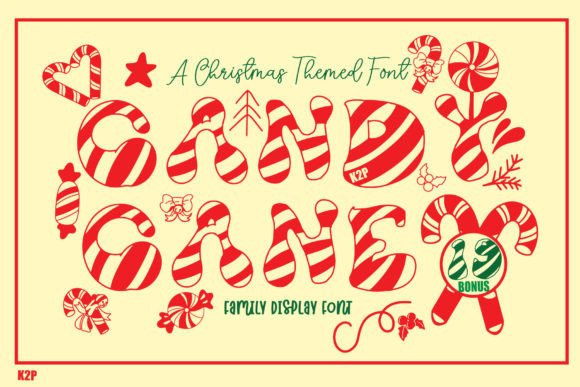
The Magic of Candy Cane Font: A Festive Design Delight
It’s that time of the year again – the holiday season is just around the corner, and as designers, we’re on the lookout for that perfect font to make our Christmas projects shine. I still remember the year I was working on a festive holiday card for a client, and I was struggling to find the right font to capture the essence of the season. The client wanted something fun, playful, and uniquely Christmas-like. That’s when I stumbled upon the Candy Cane font, and it instantly became the star of the show! 🎄
• ✅ Extremely festive and on-theme for Christmas projects
• ✅ Unique and eye-catching design that’s sure to stand out
• ✅ Highly versatile and can be used for various design ideas, from holiday cards to decorations
• ✅ Easy to read and understand, even in smaller sizes
• ⚠️ May not be suitable for formal or professional designs outside of the holiday season
• ⚠️ Some characters might look a bit quirky or stylized, which could affect readability in certain contexts
The Story Behind Candy Cane Font
Candy Cane font was designed with the holiday season in mind. The creator wanted to craft a font that captured the whimsy and playfulness of Christmas, while still being easy to read and understand. The result is a unique and festive font that’s perfect for adding a touch of holiday cheer to your designs.
Q: What type of designs is Candy Cane font best suited for?
A: Candy Cane font is ideal for holiday-themed designs, such as Christmas cards, decorations, and festive projects.
Q: Is Candy Cane font available in different styles or variations?
A: Yes, Candy Cane font may come in different styles or variations, such as bold, italic, or outline versions.